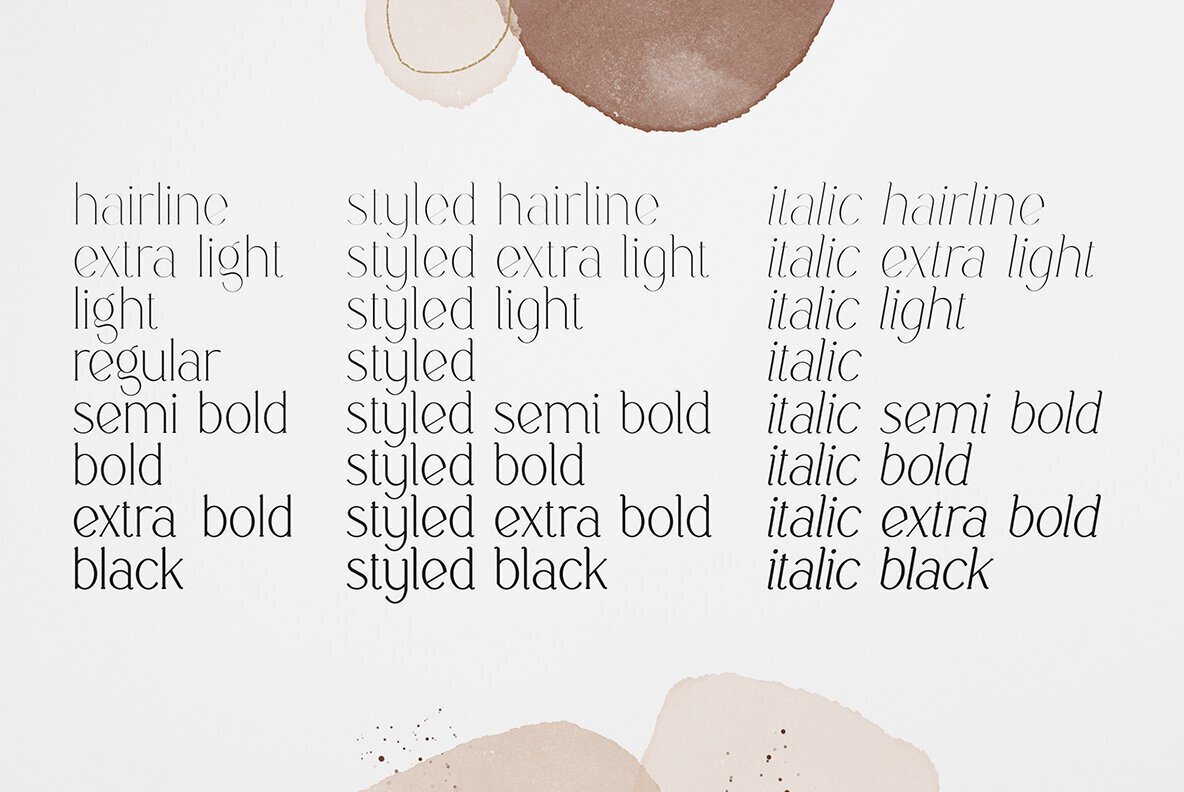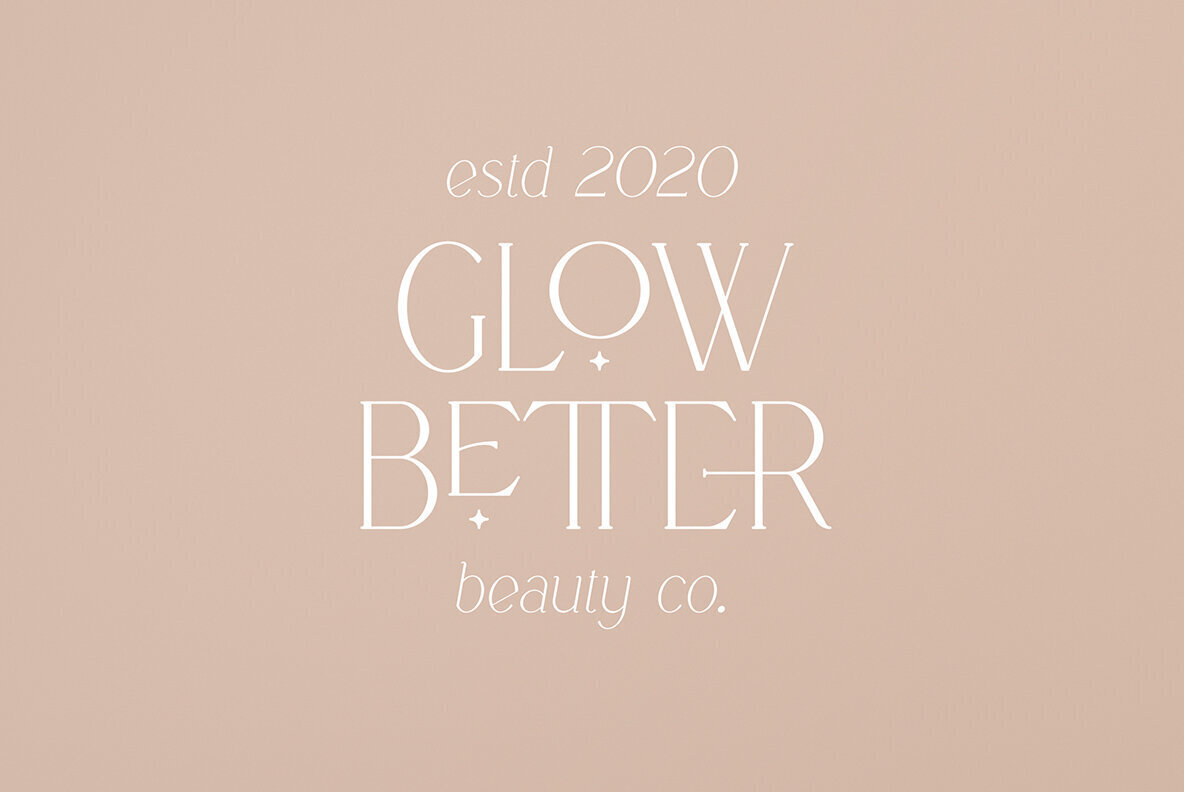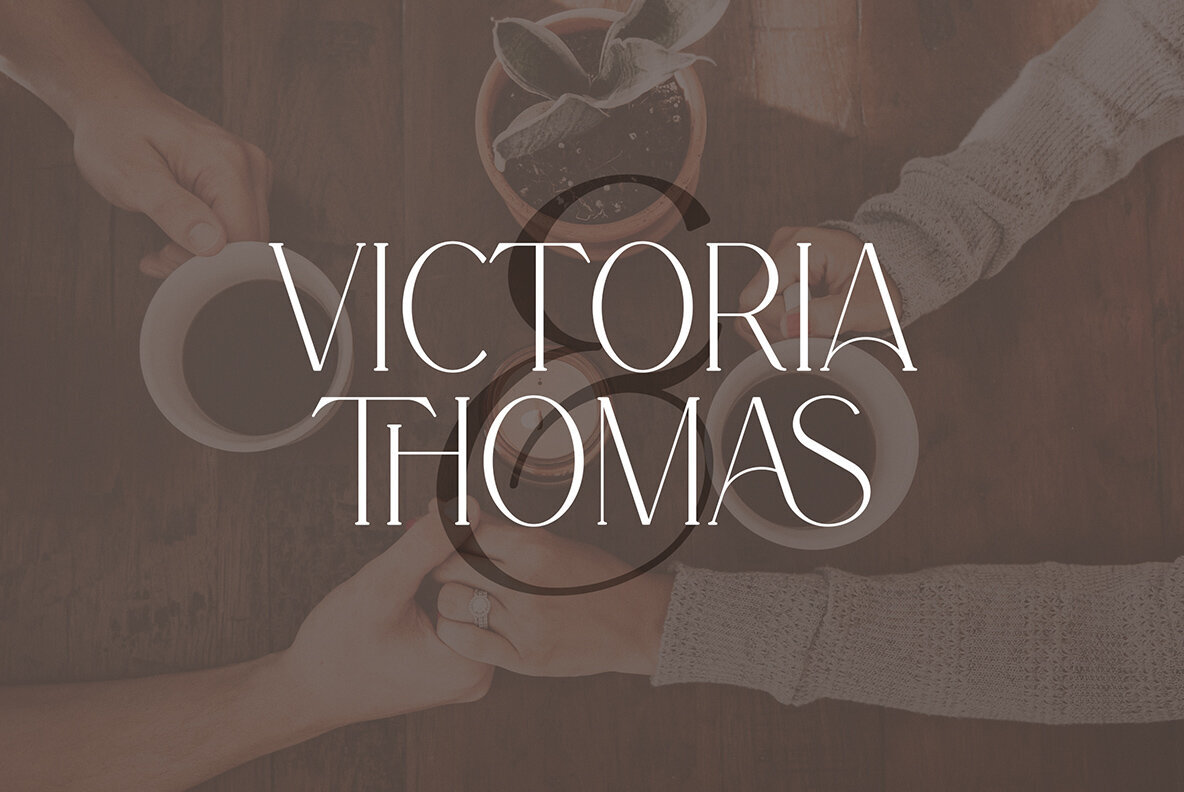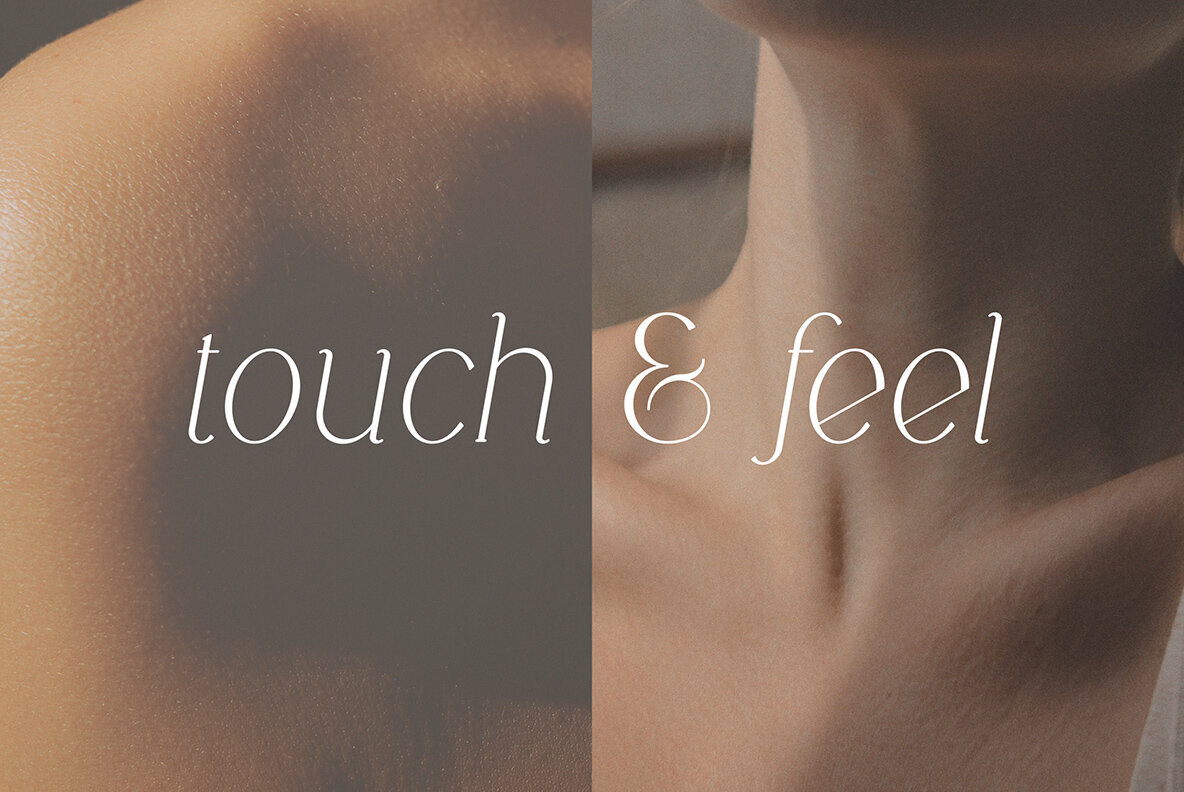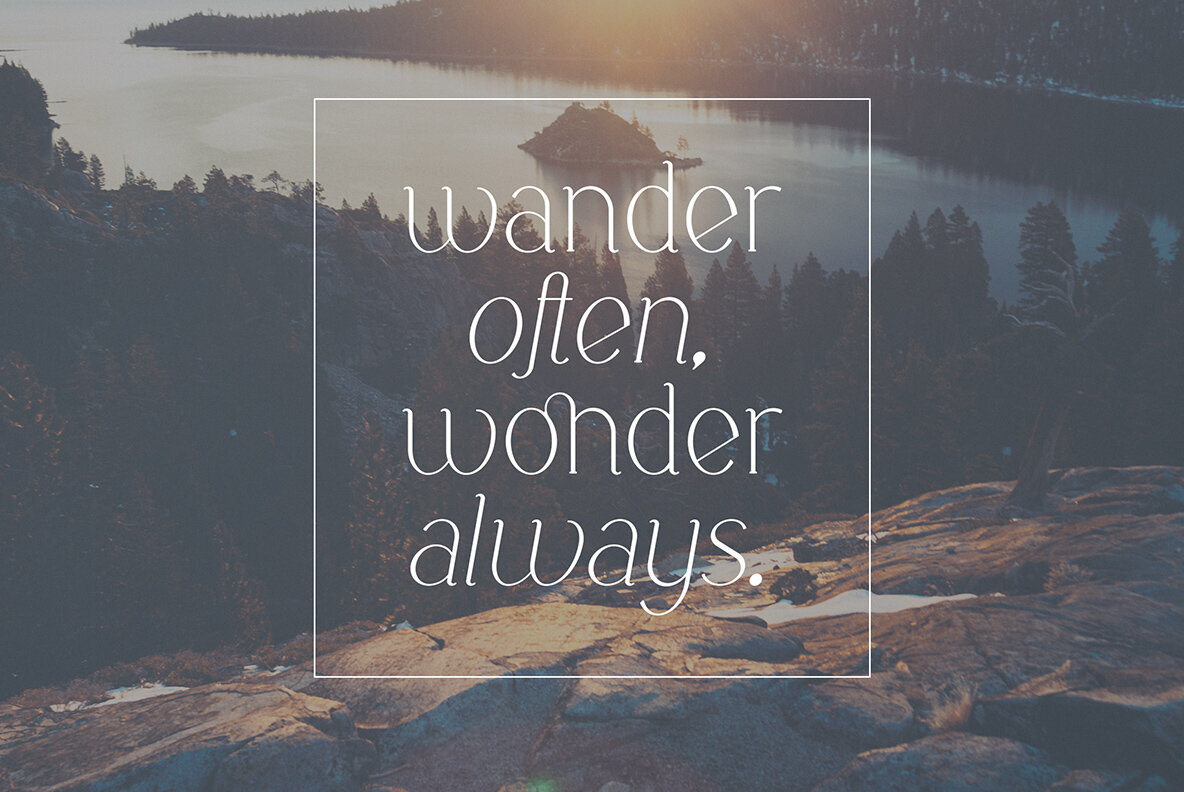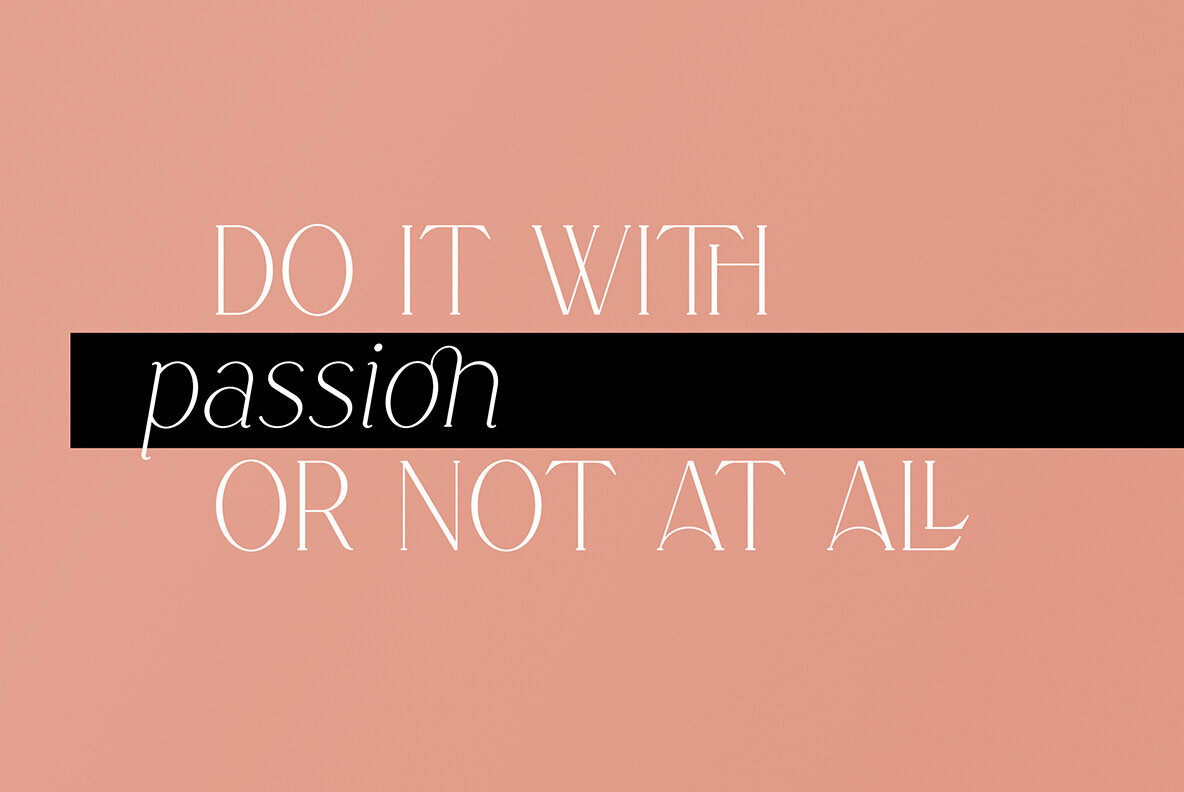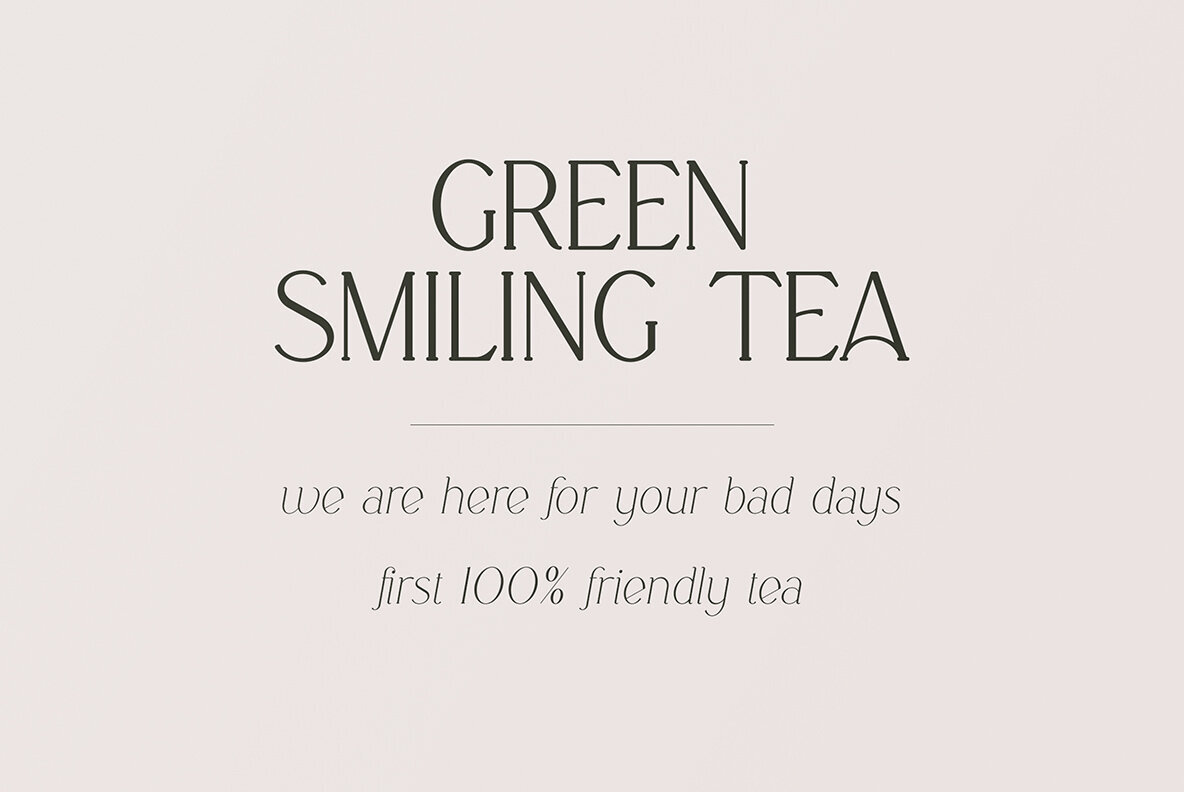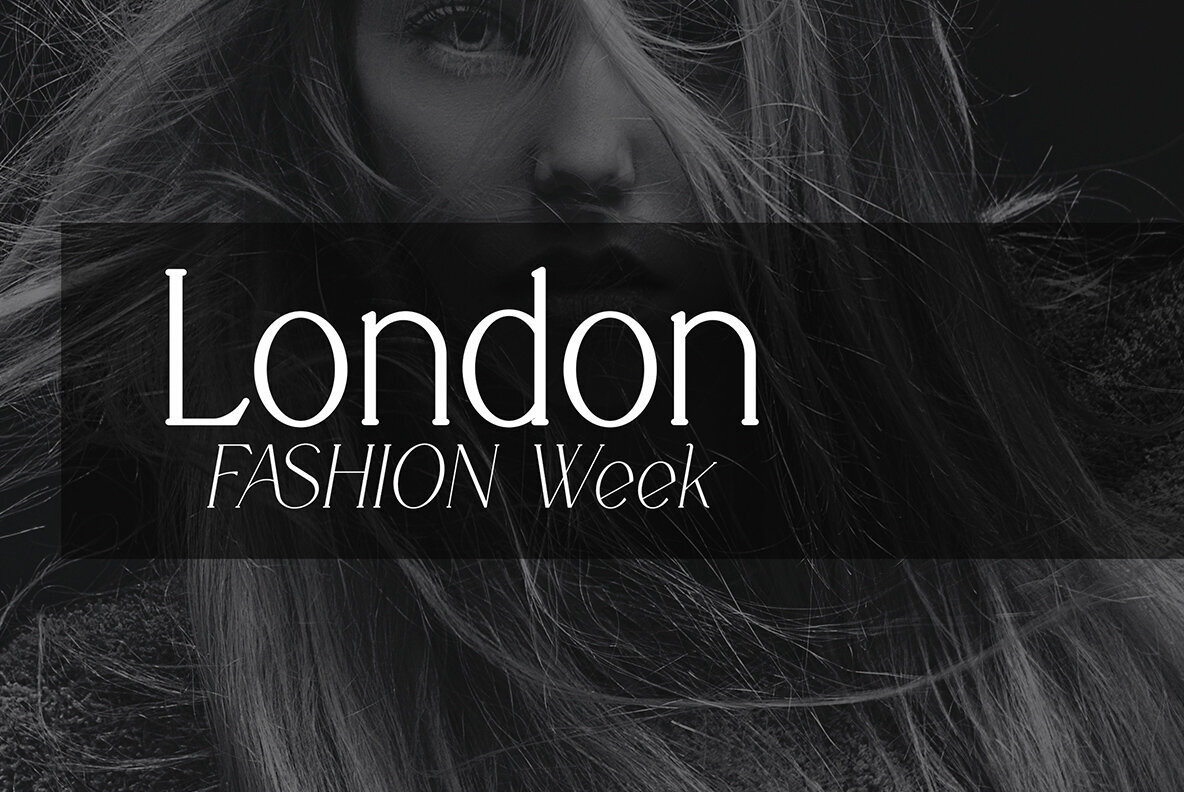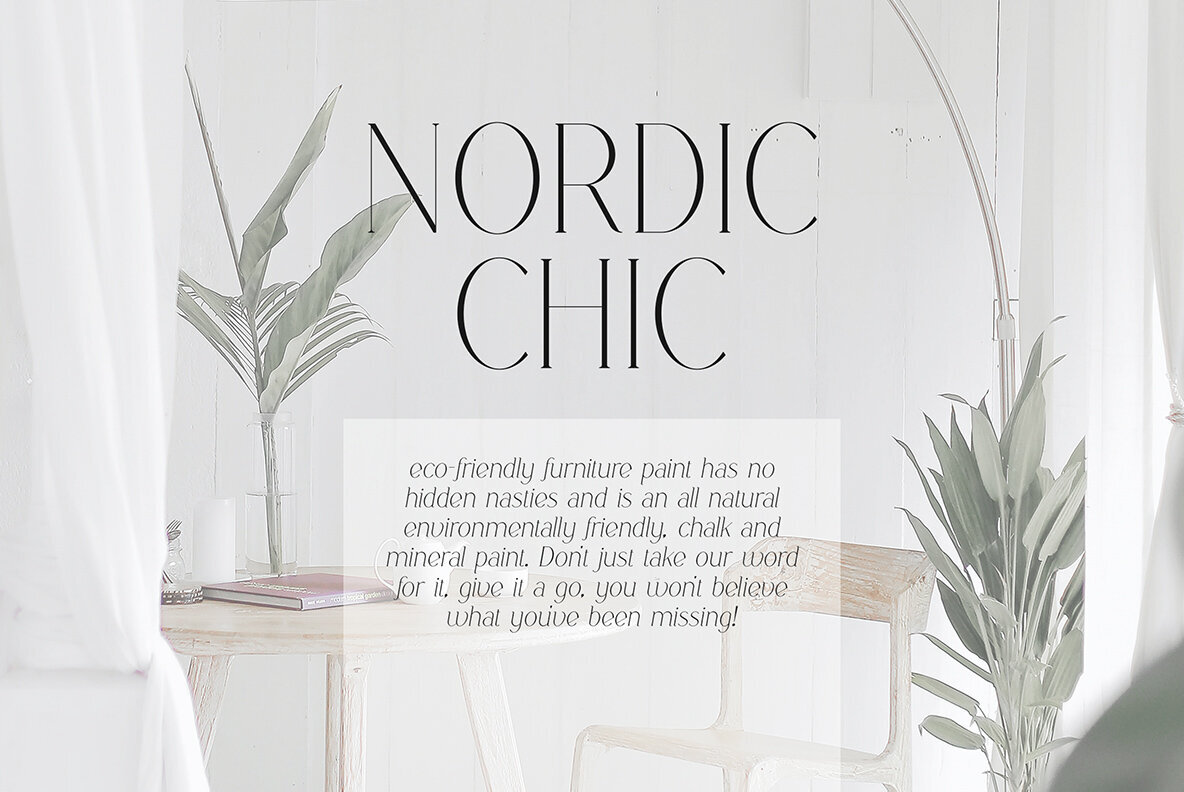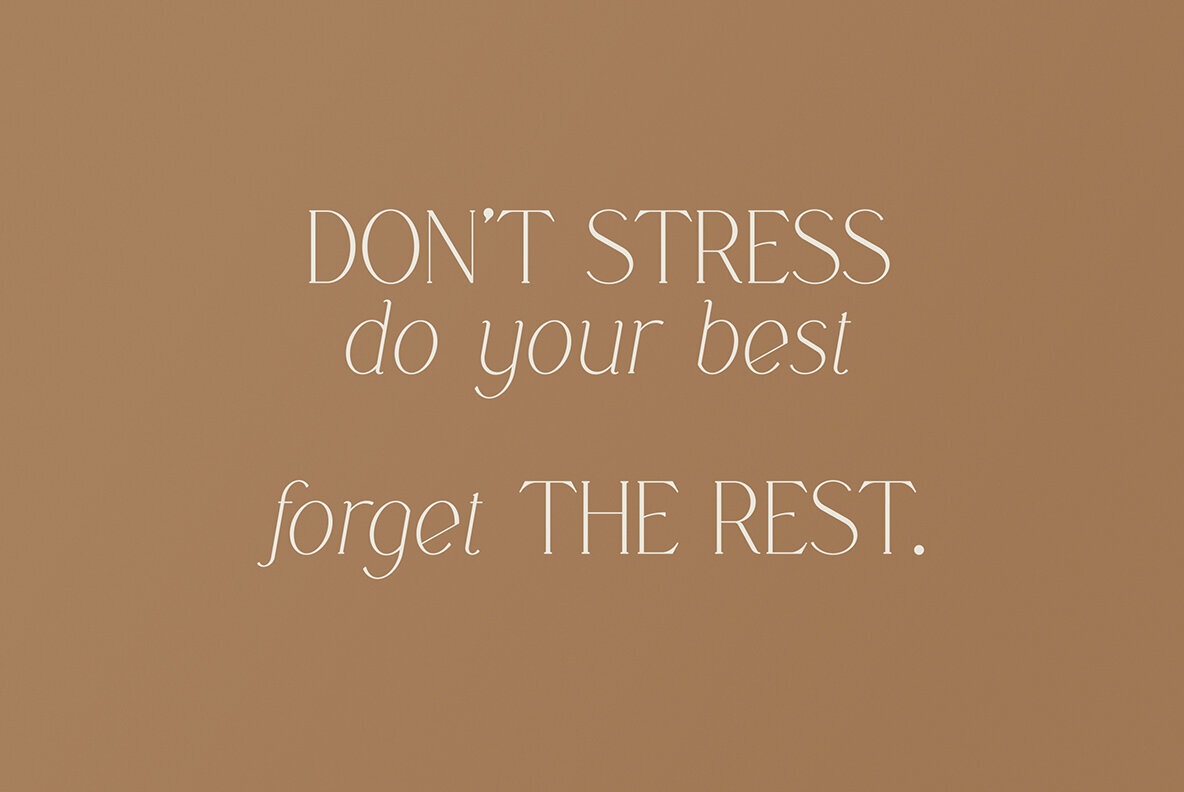
Boketto Font
Boketto by VP Creative Shop embodies elegance and versatility, offering a collection of 24 unique font styles, including regular, styled, and italics. Its robust features are designed to enhance your projects, providing alternate and ligature glyphs for typography that truly stands out. Supporting an impressive 87 languages, Boketto is ideal for international projects, ensuring your message reaches a global audience without compromise.Boketto: Elegant Typeface with Versatile Styles
Comprehensive Language Support